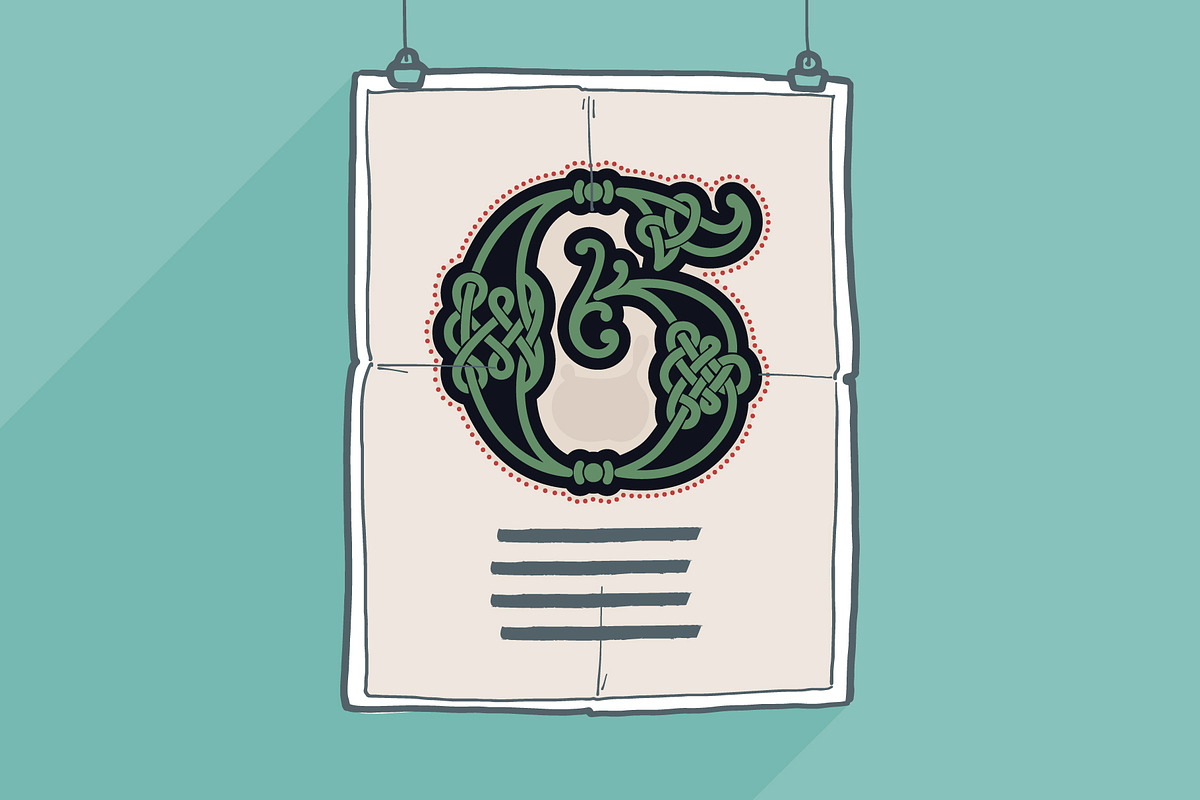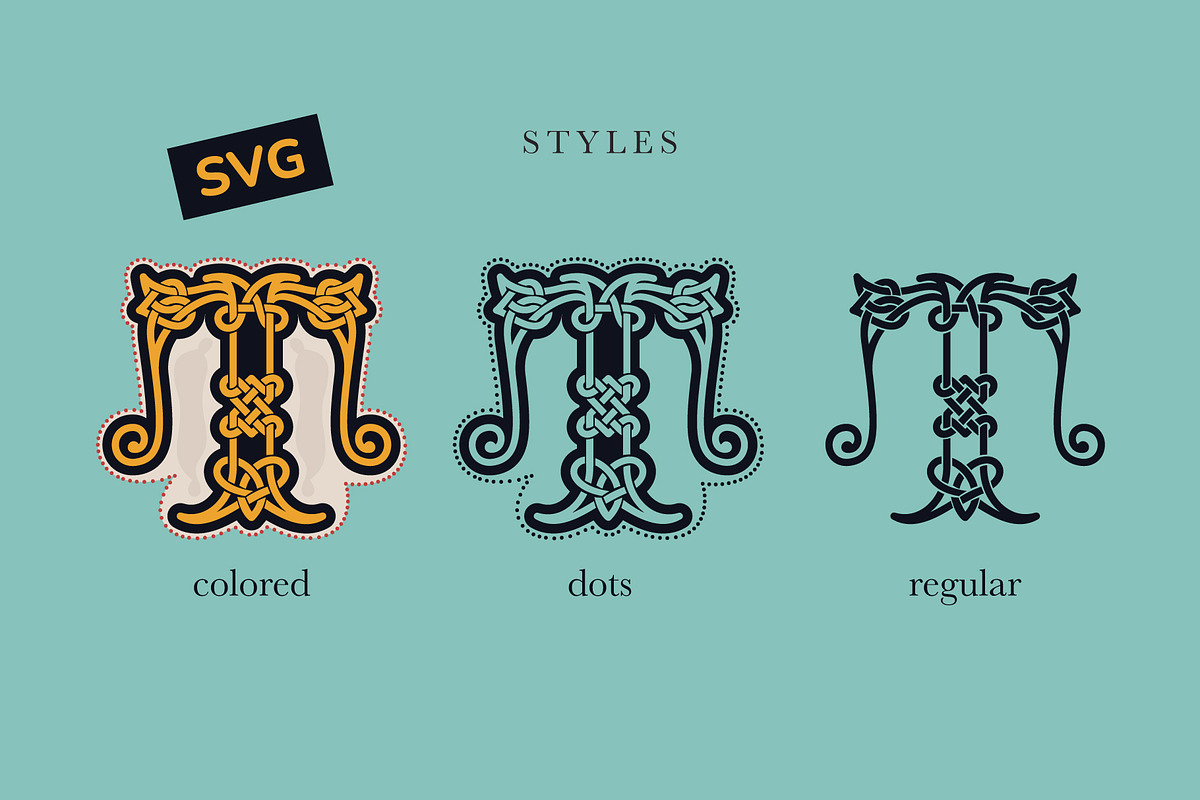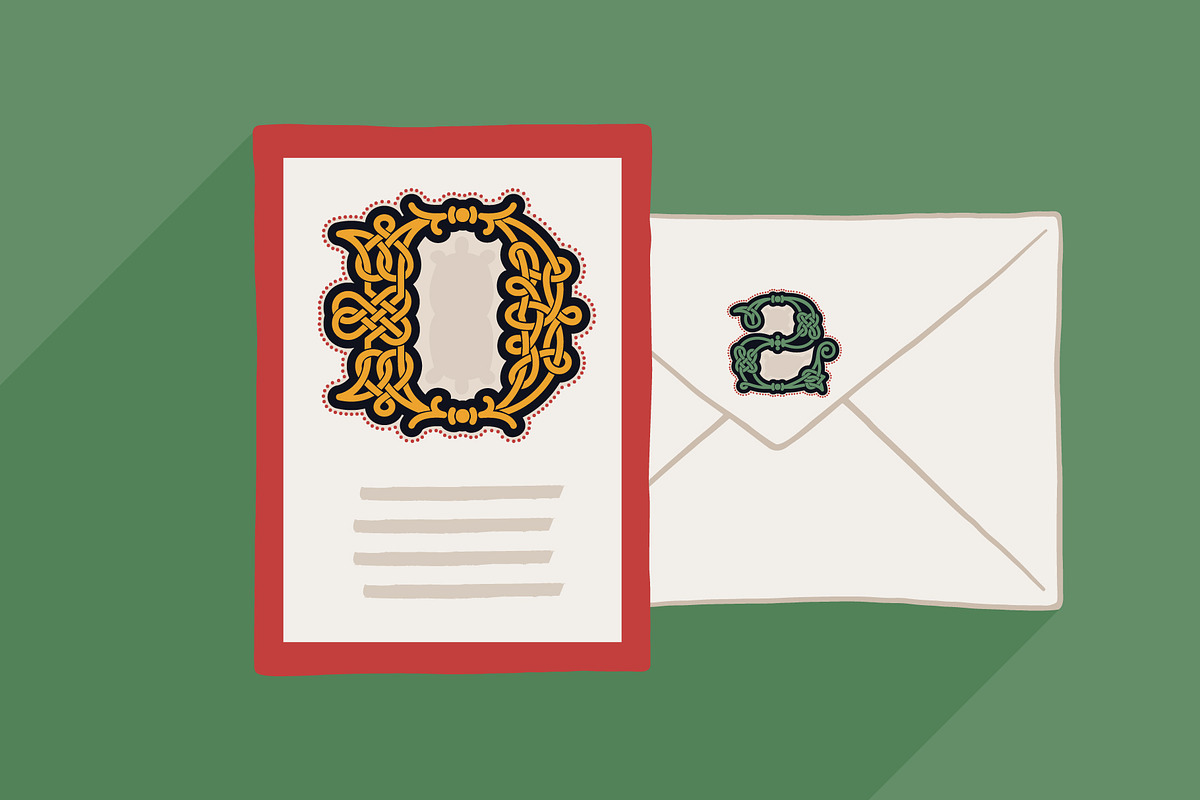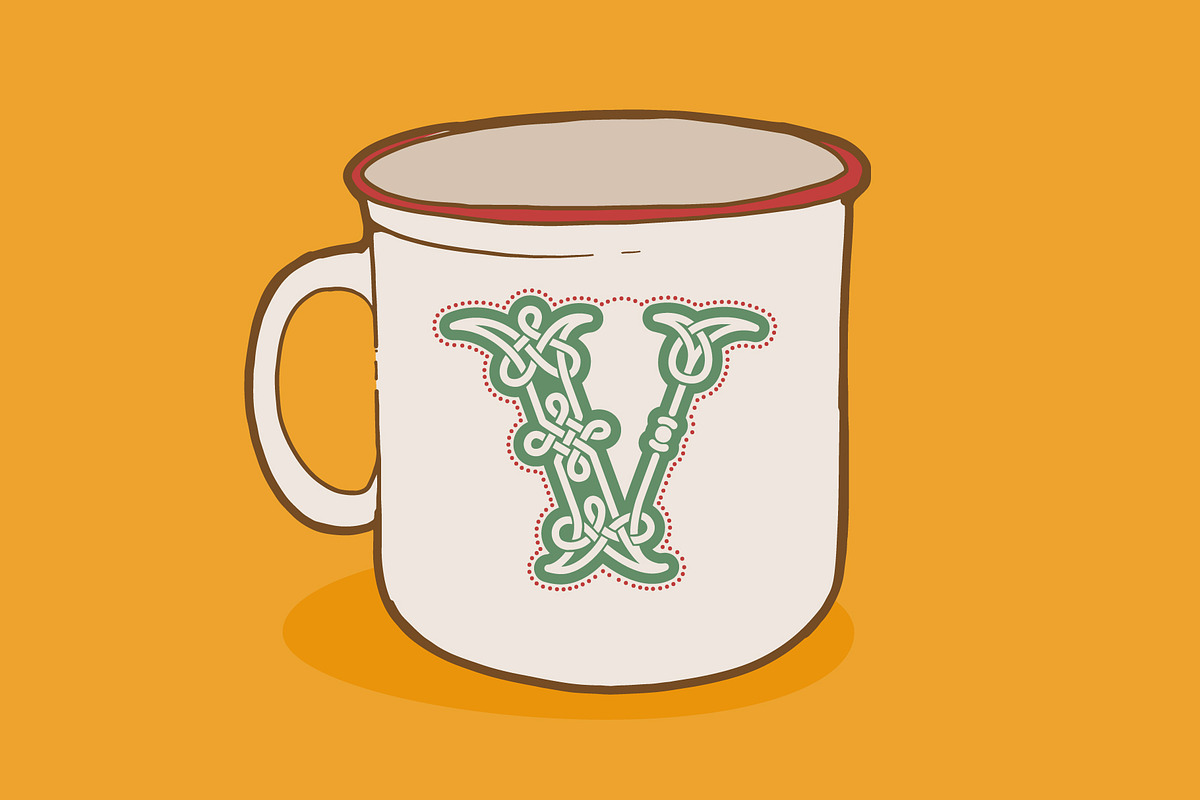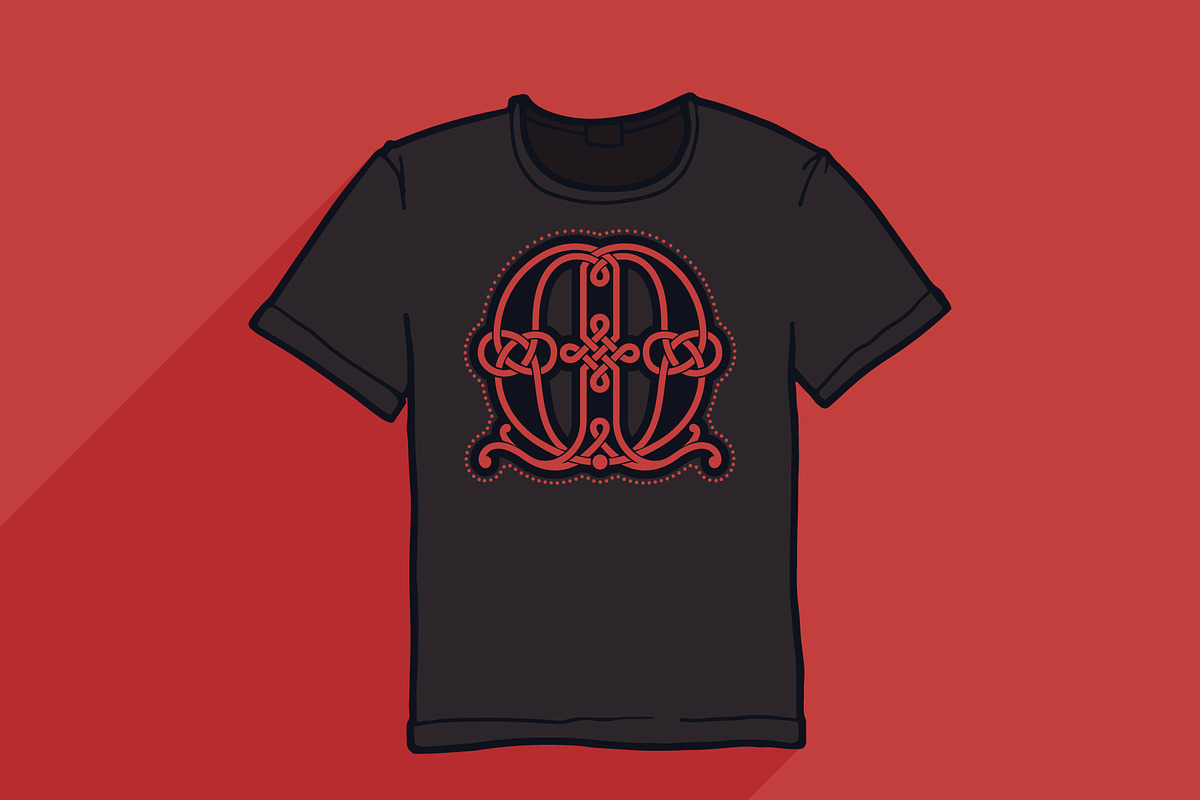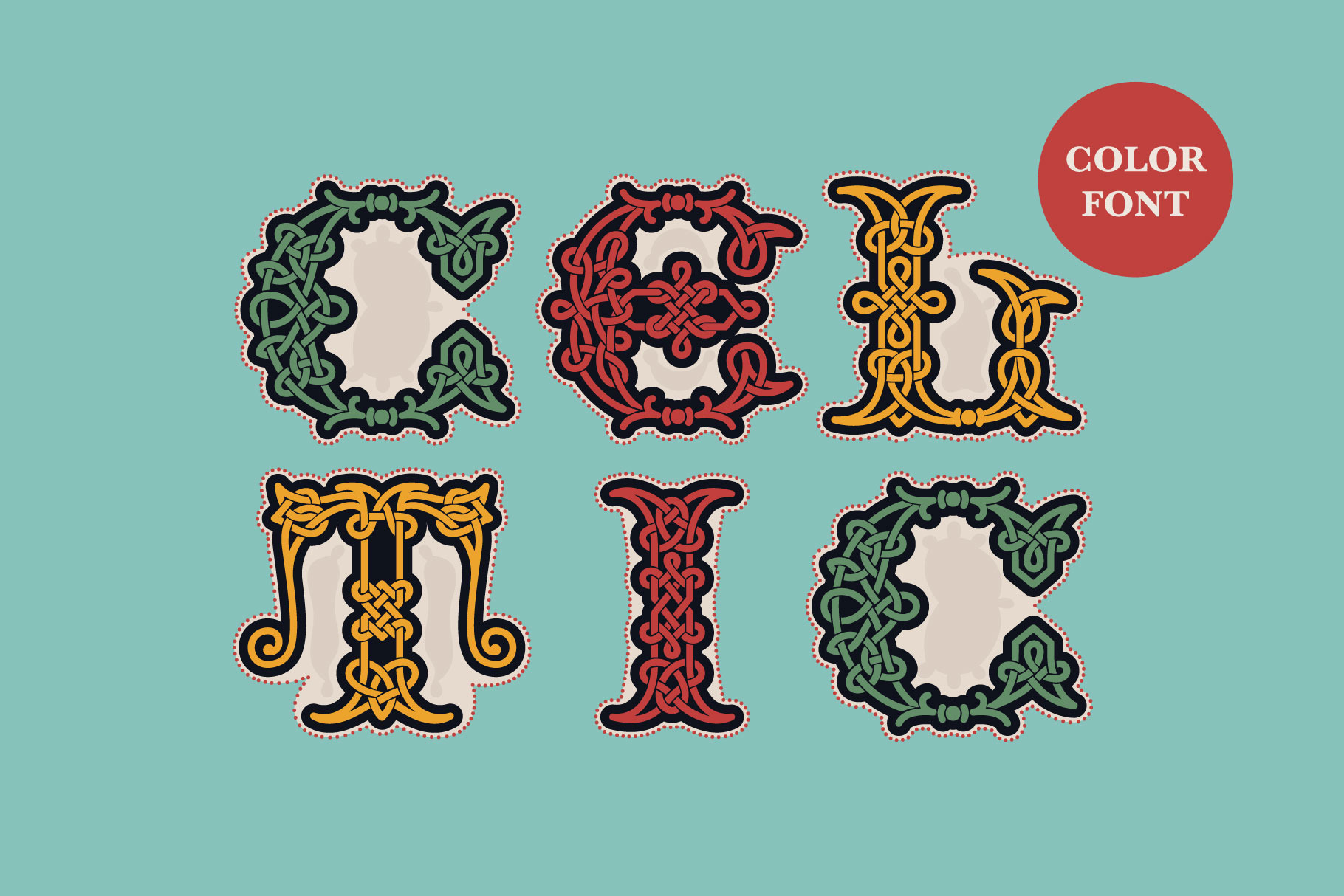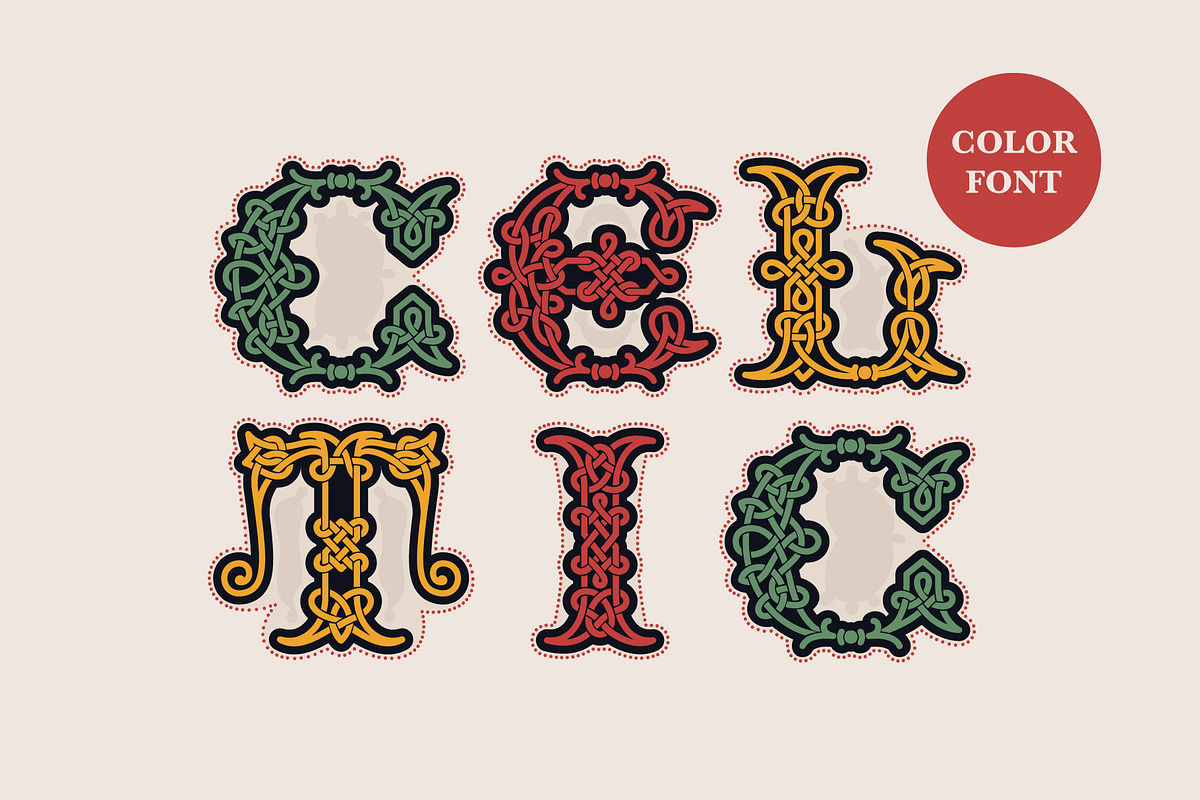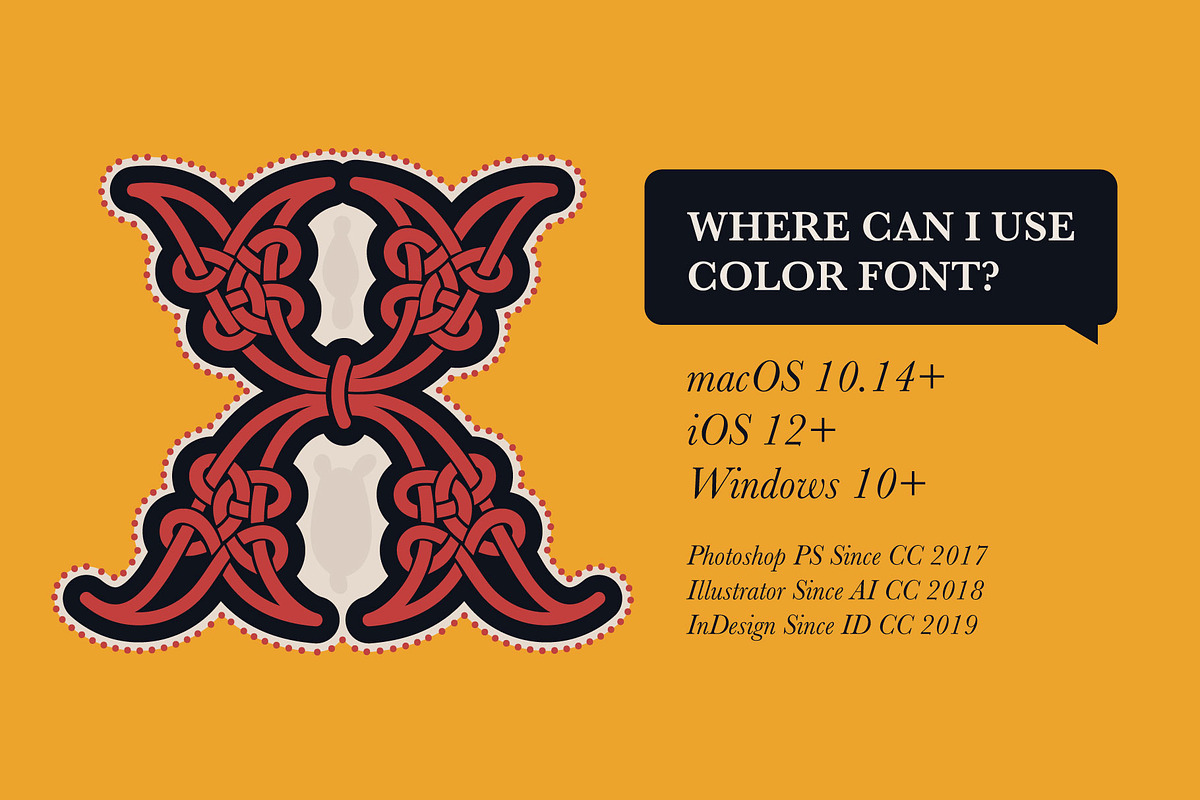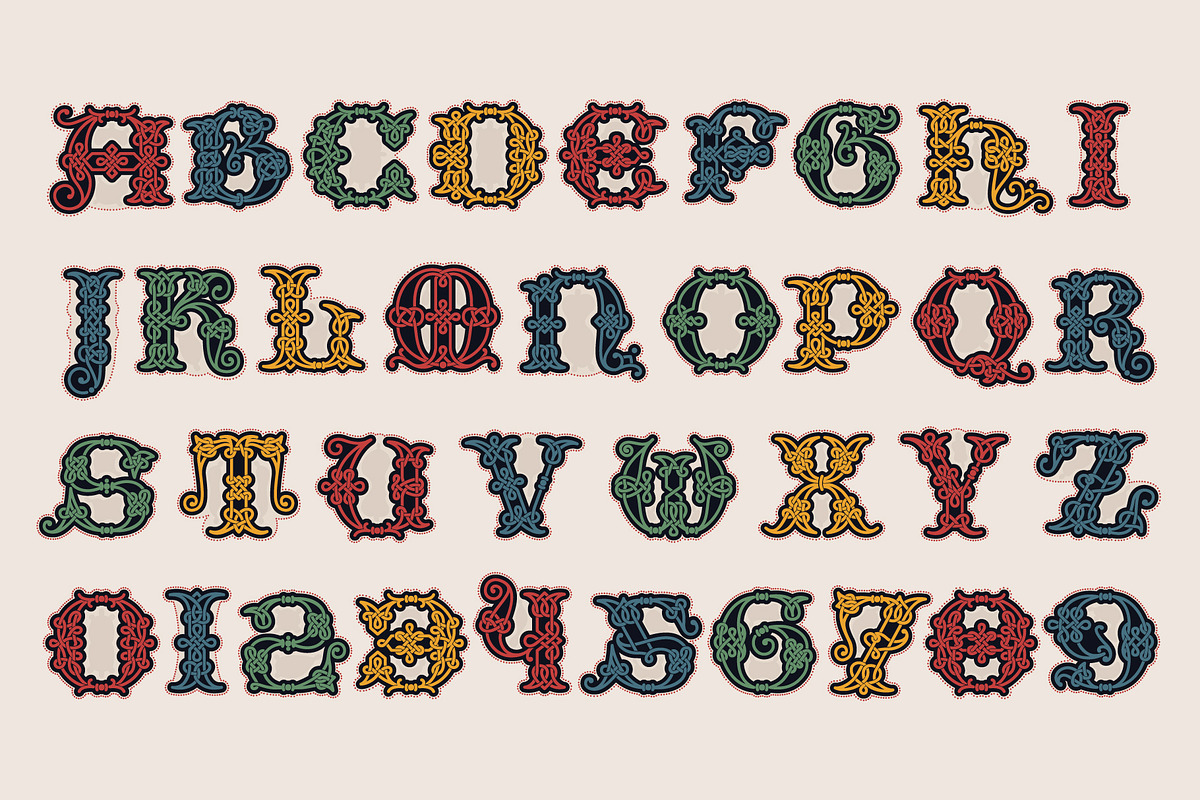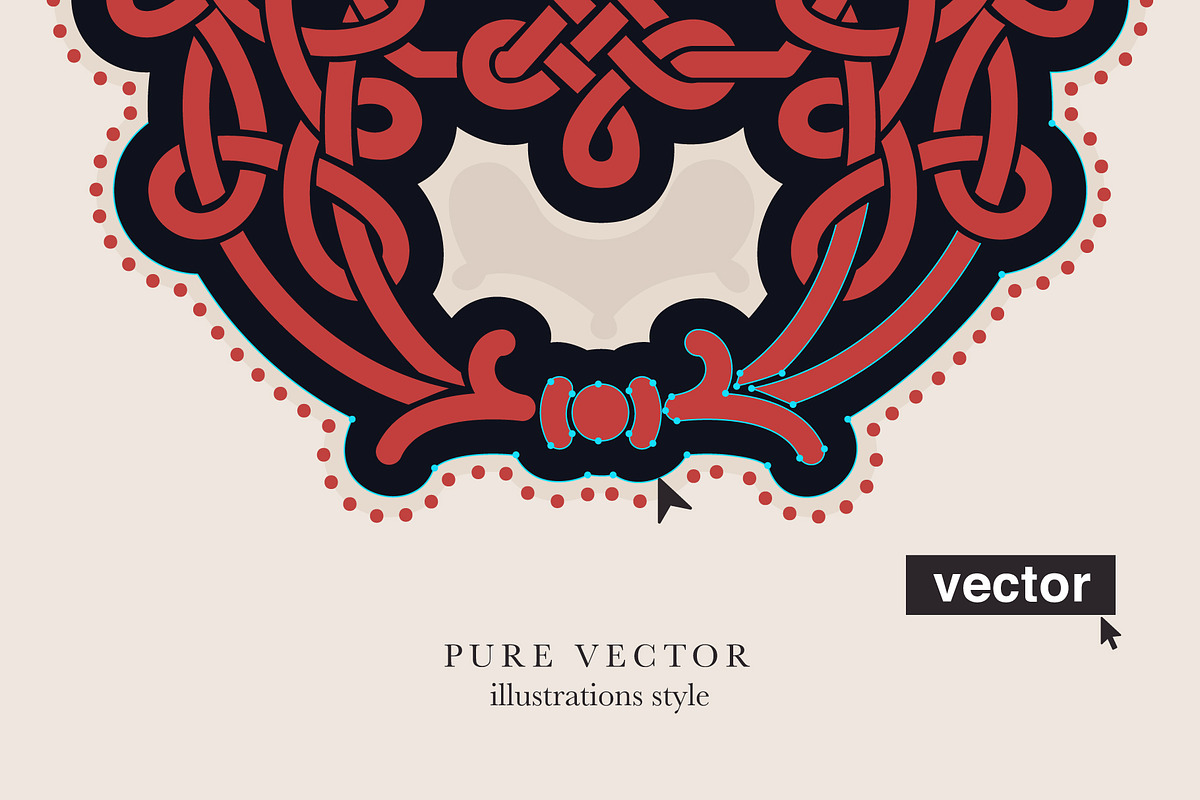
Celtic Nova colored font
Hi! Celtic Nova font is available. The font is presented in regular and color versions. This is a new classic Celtic font with spirals and knots. Celtic Nova font is perfect for printing of graphic arts, posters, packaging and t-shirts.
The font is given in regular and colored versions.